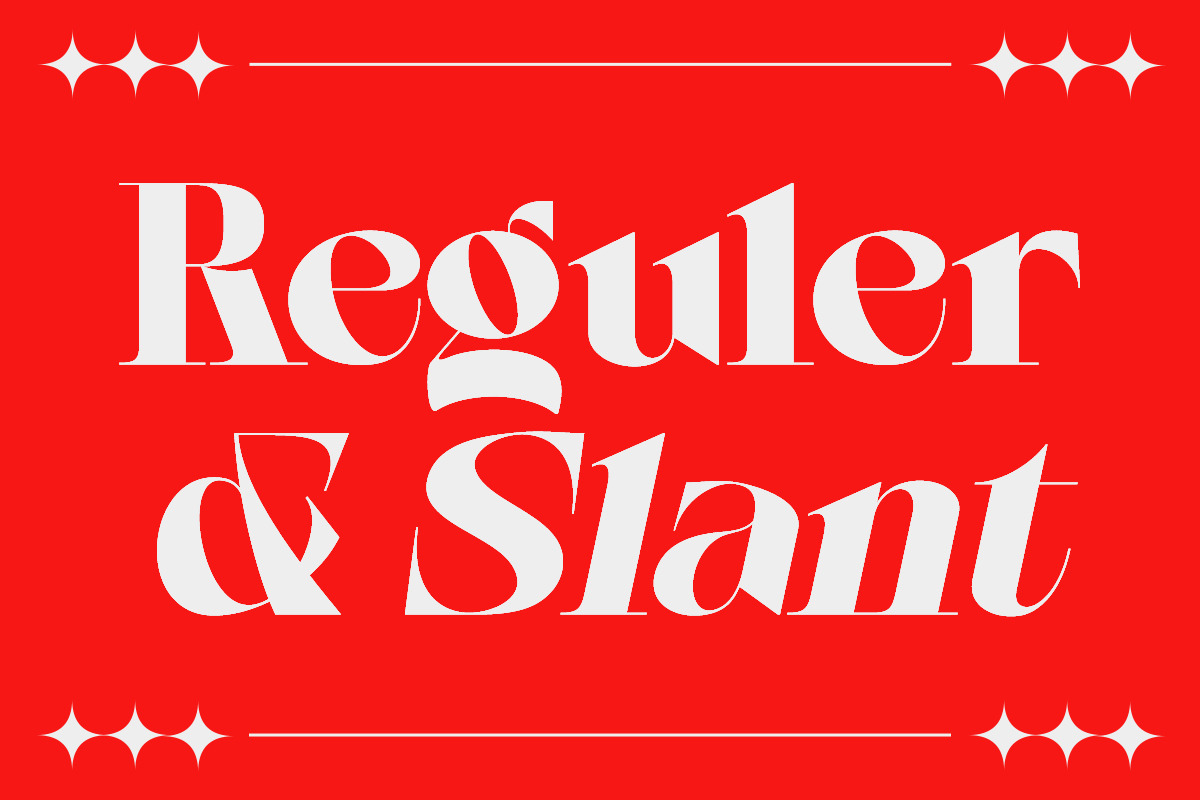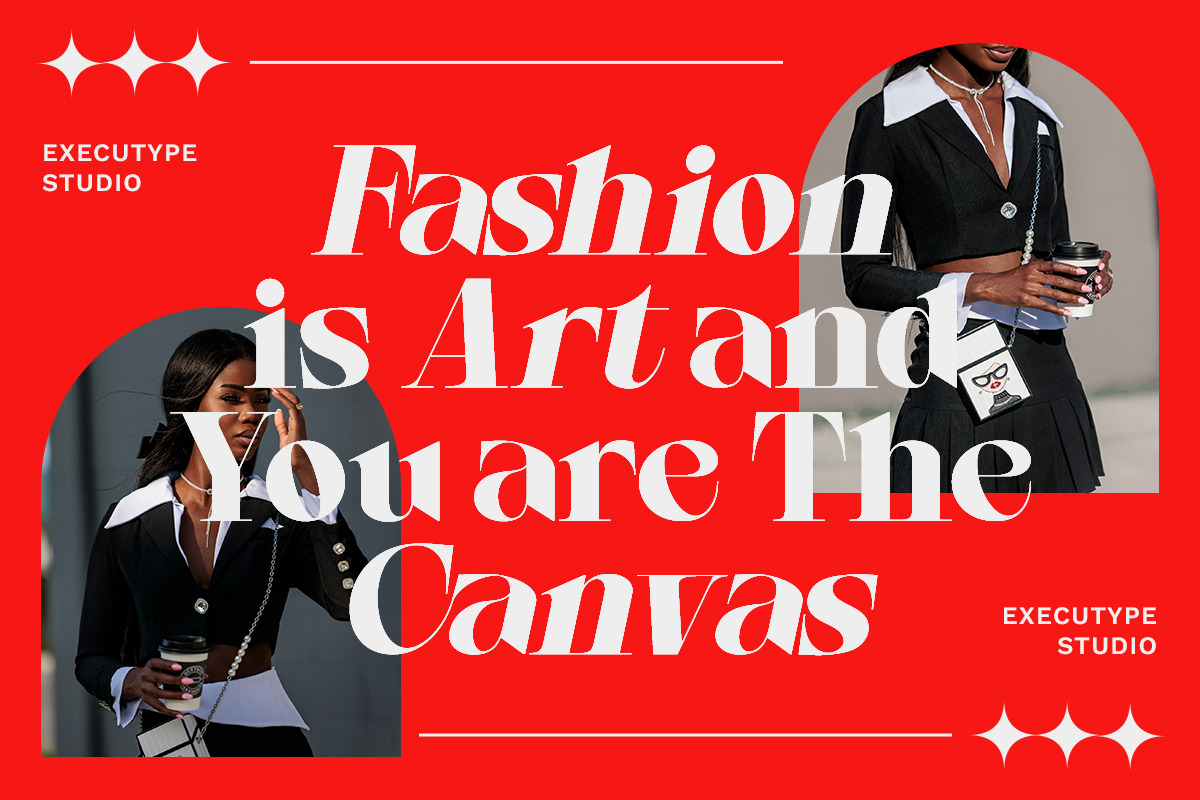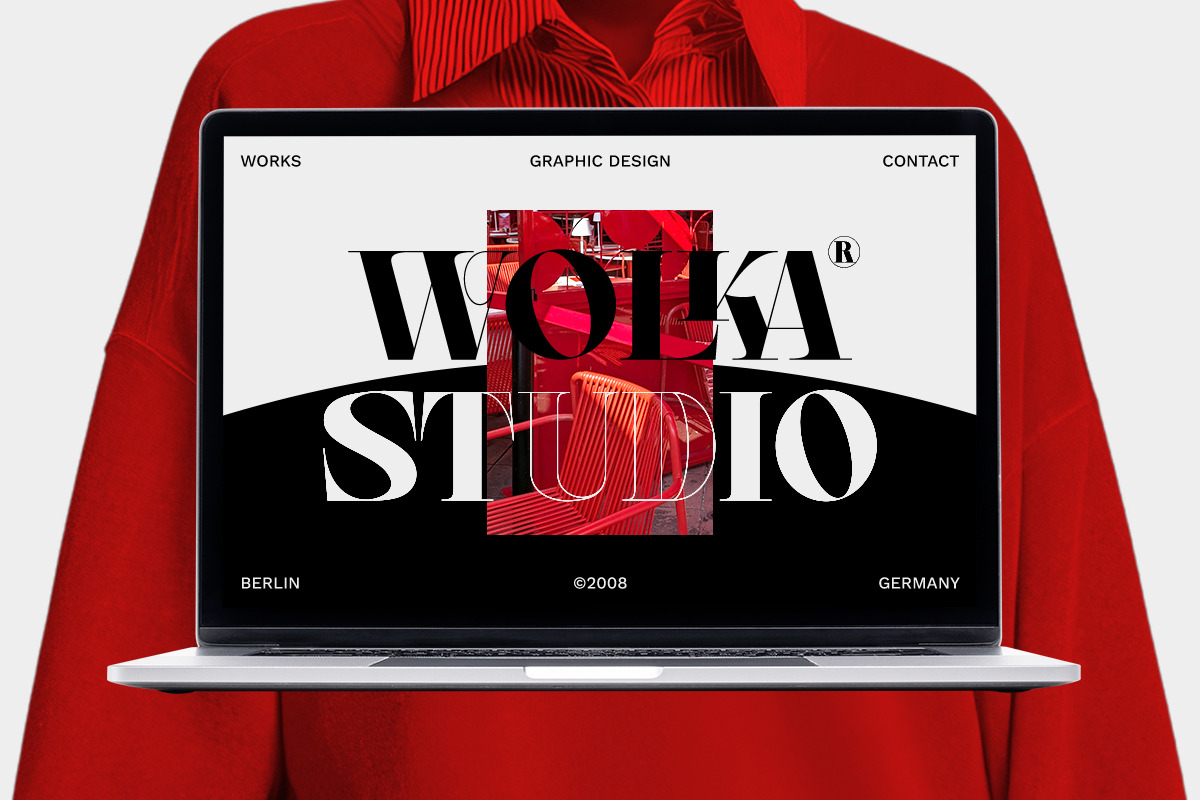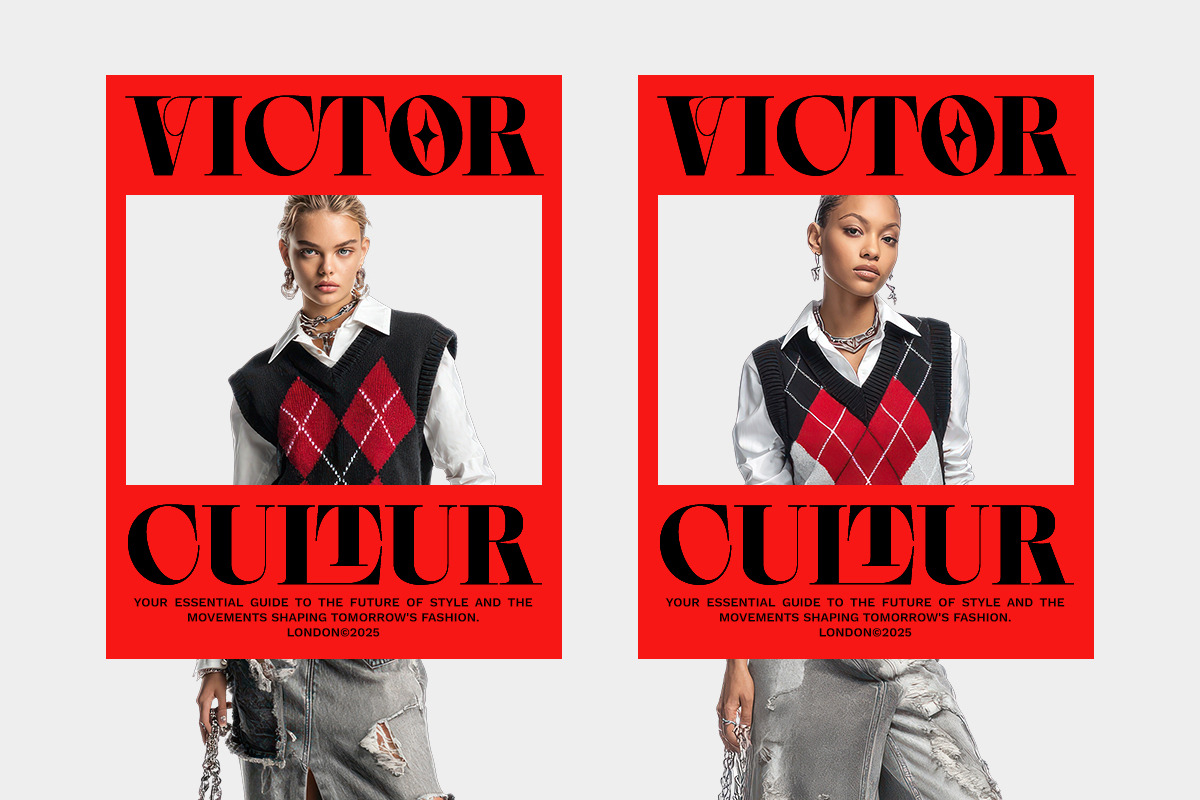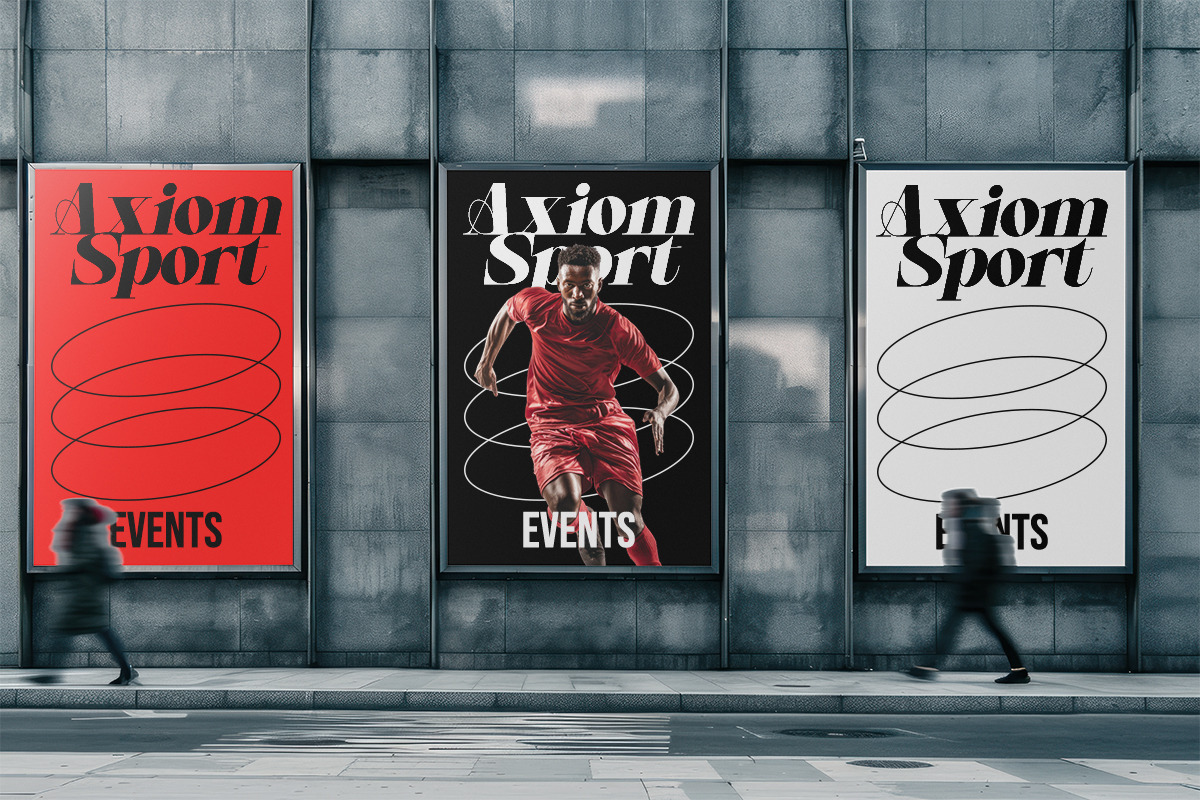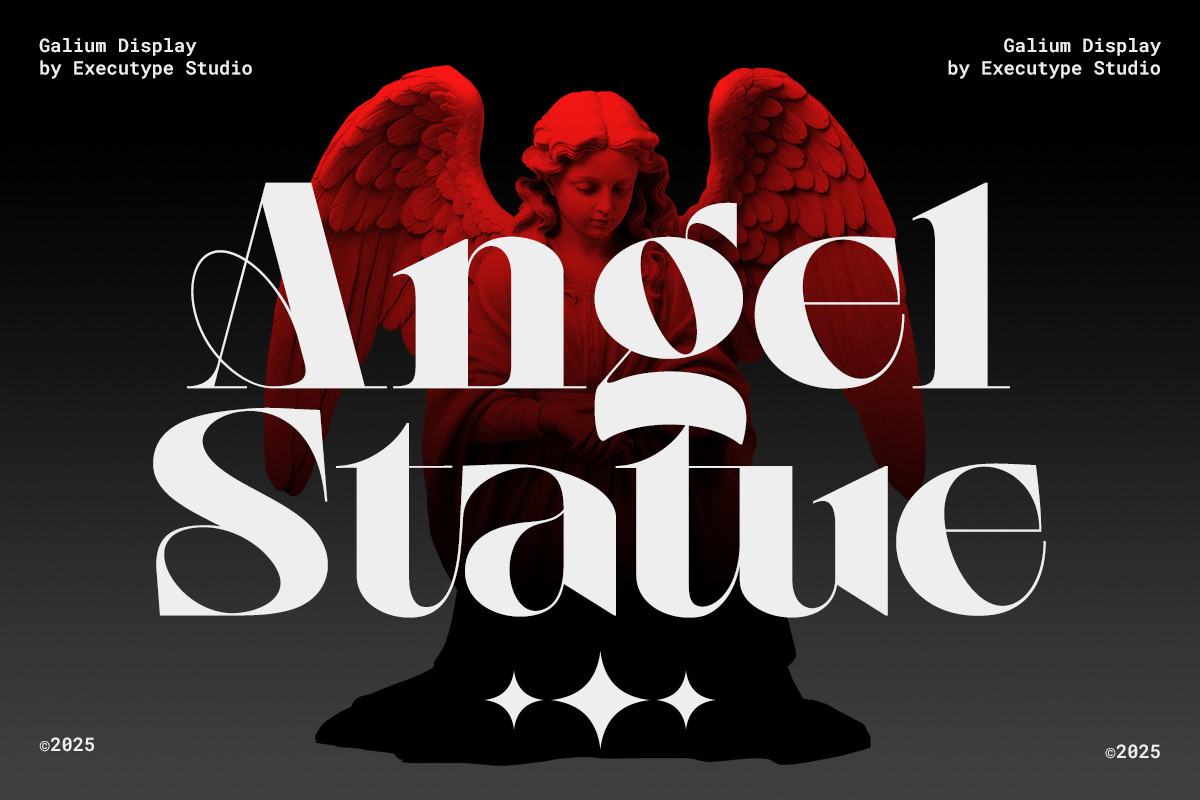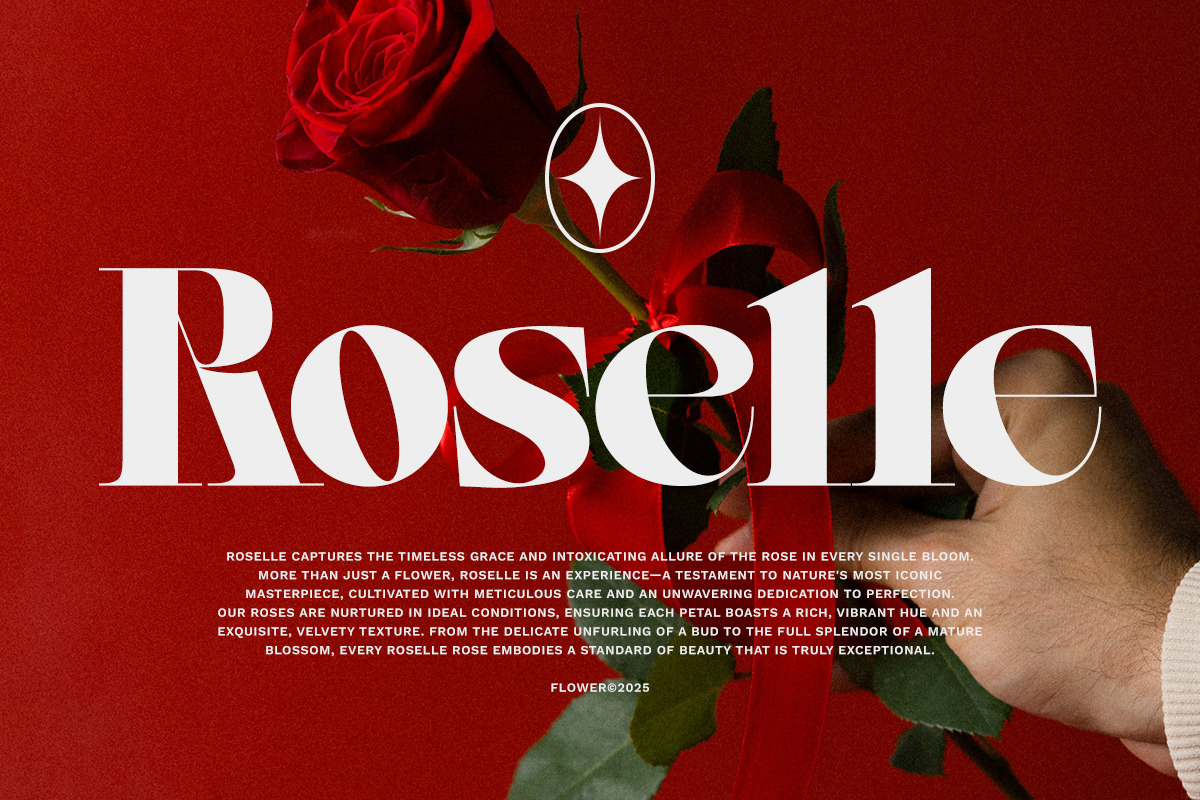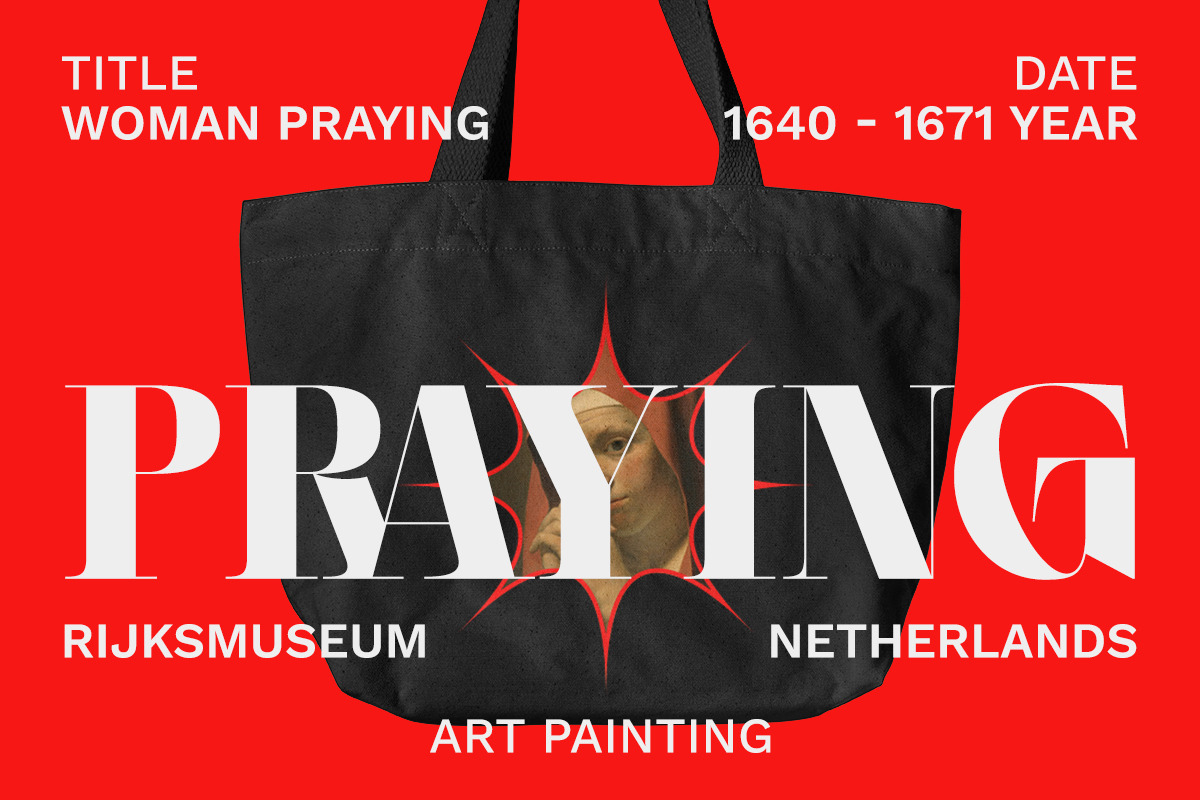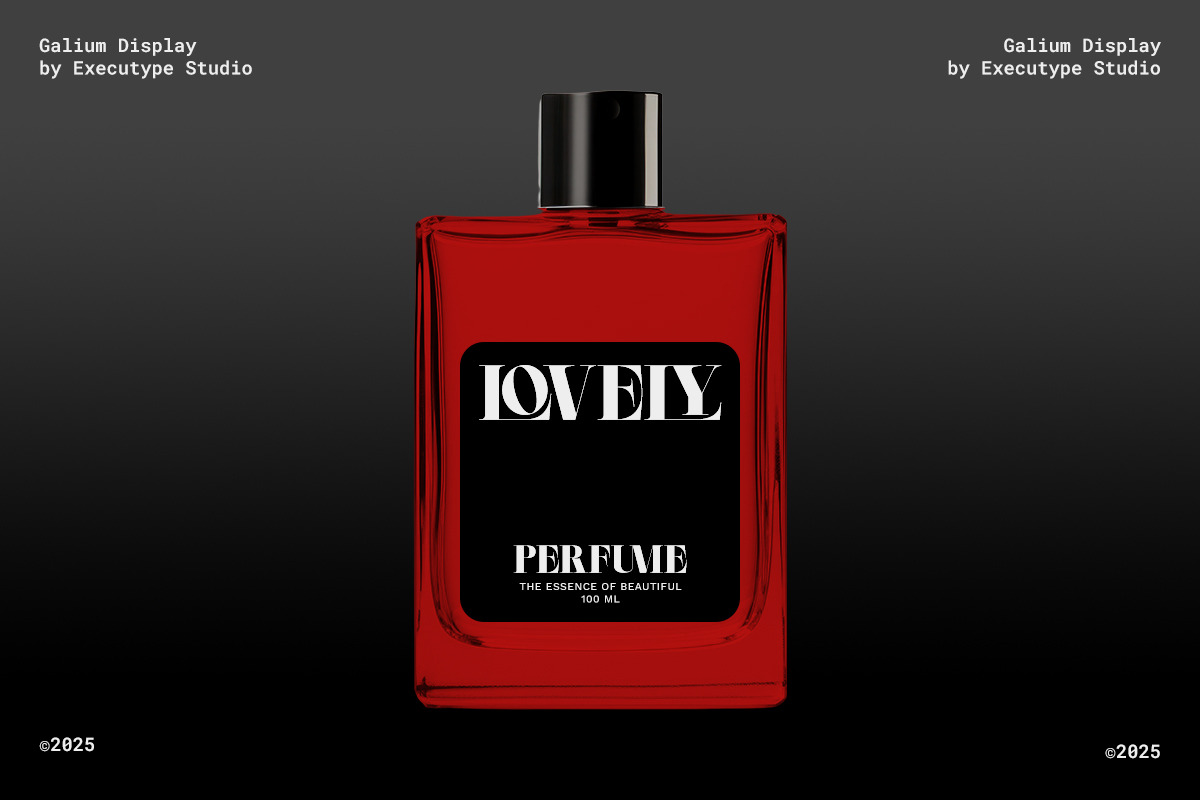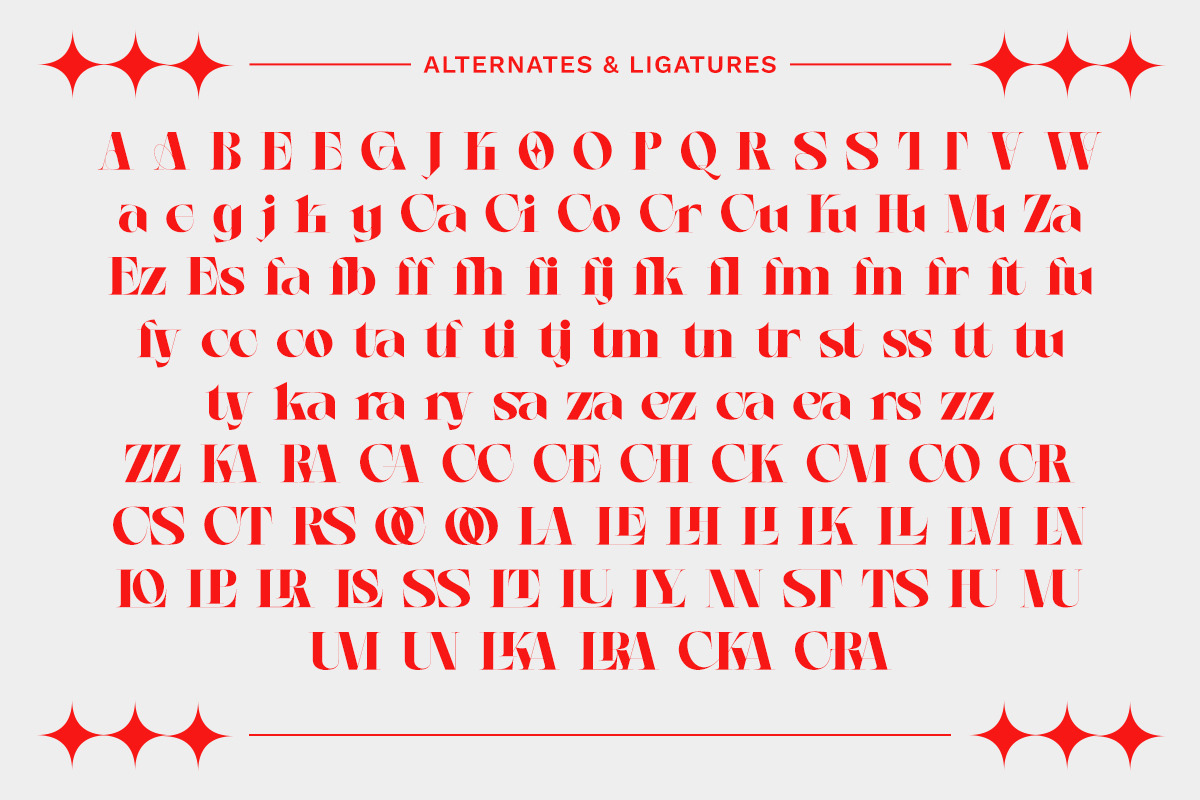
Galium Display
Galium Display - Serif Display Typeface
Galium Display the perfect bold and narrow font for headlines and captivating displays. Ideal for designers seeking a modern and impactful look with retro and vintage vibes. Transform your projects with this regular, that demands attention.